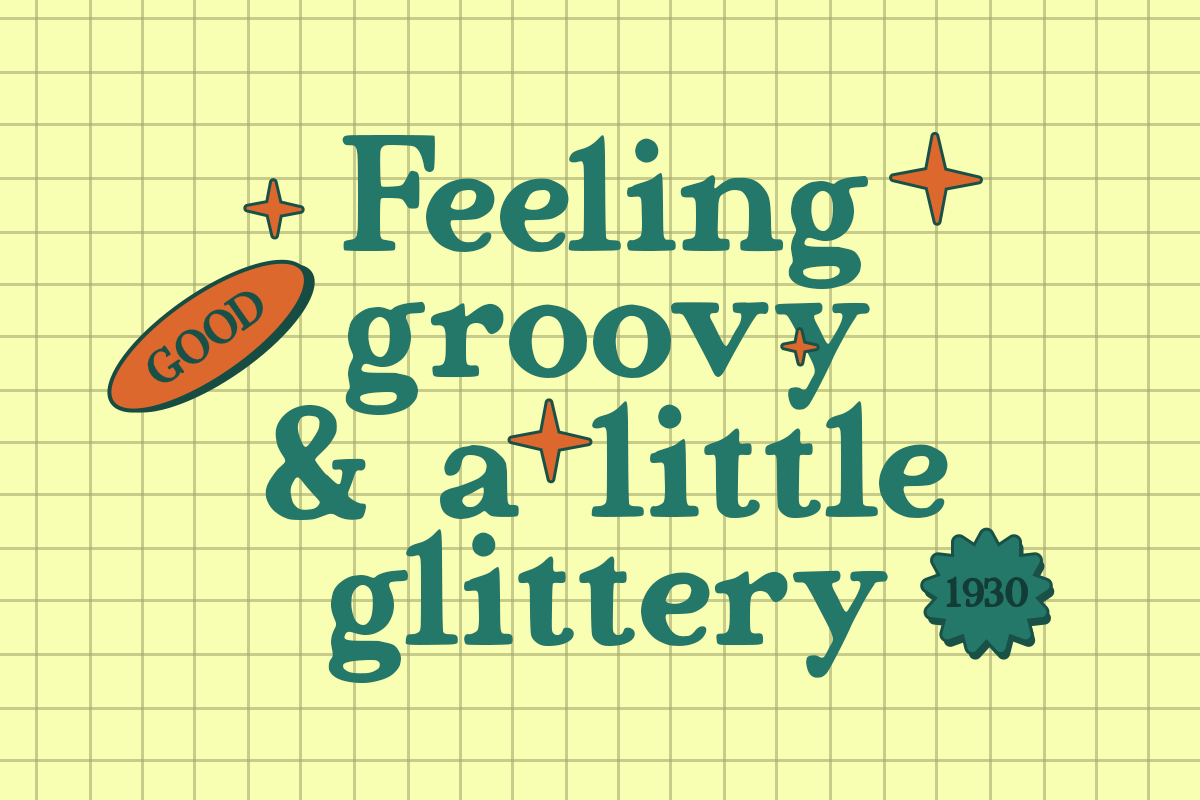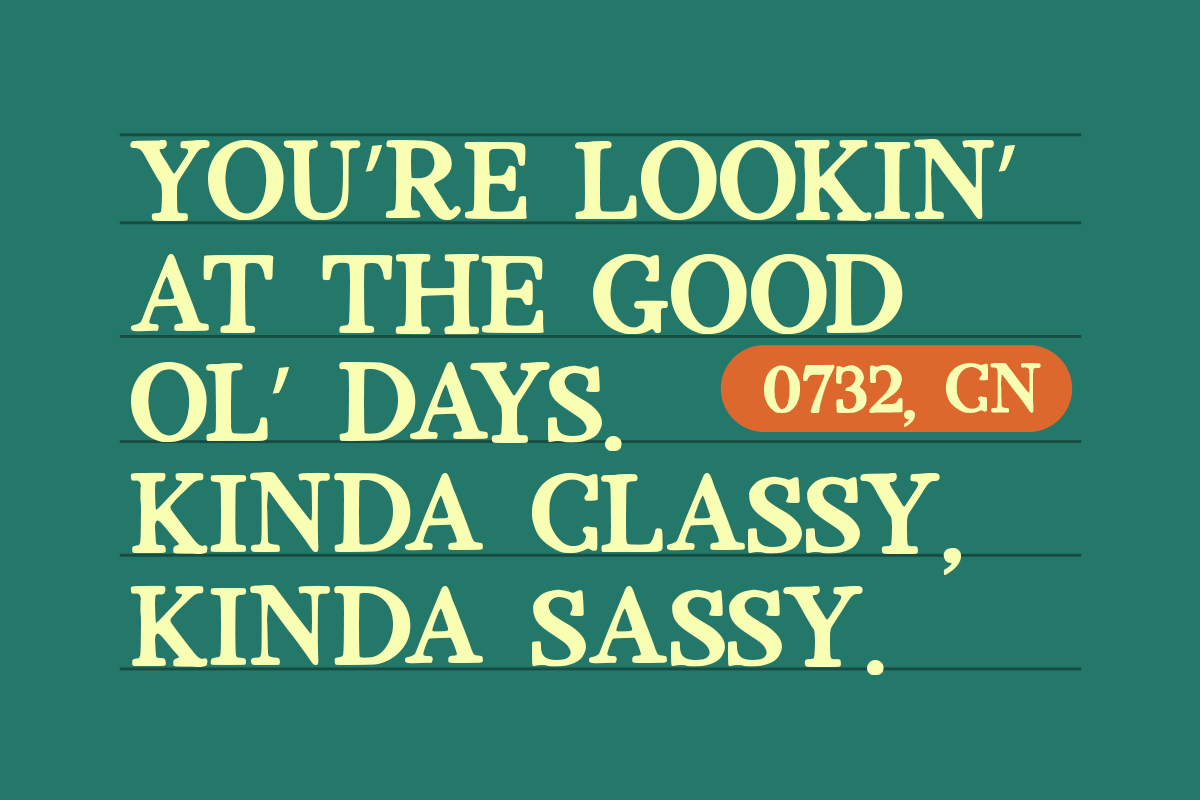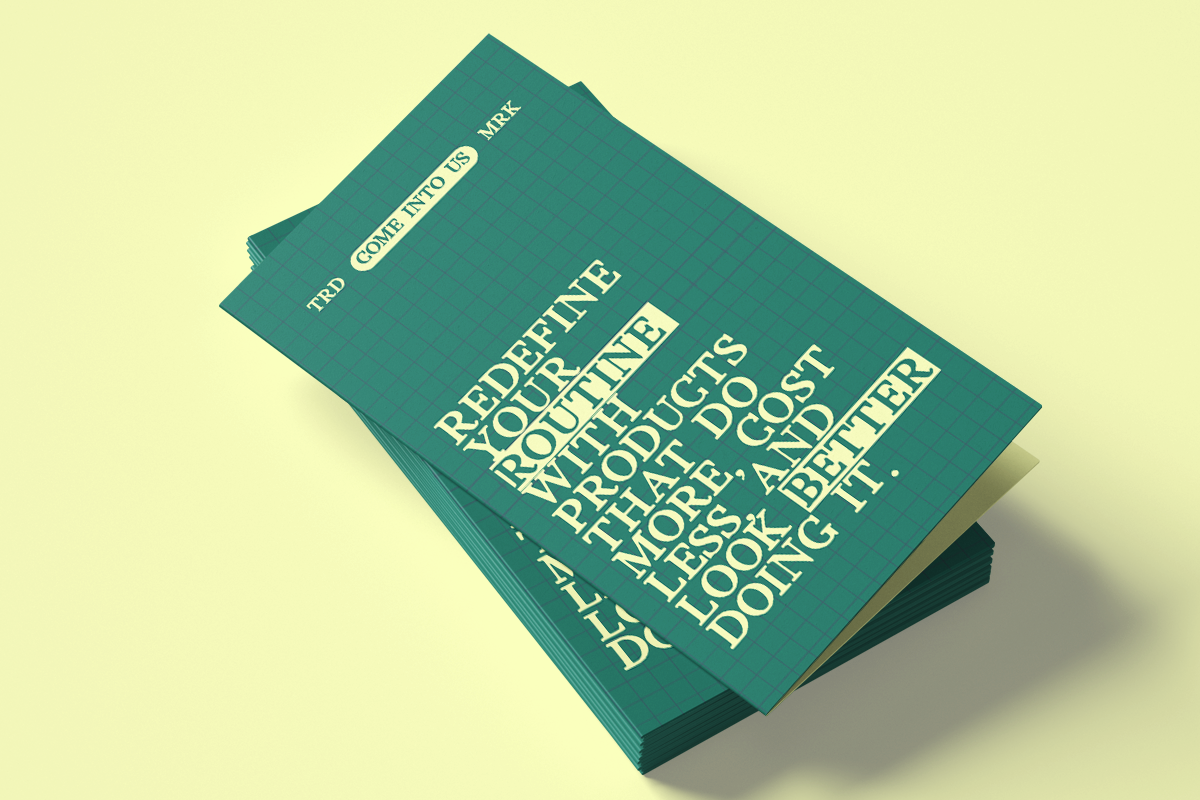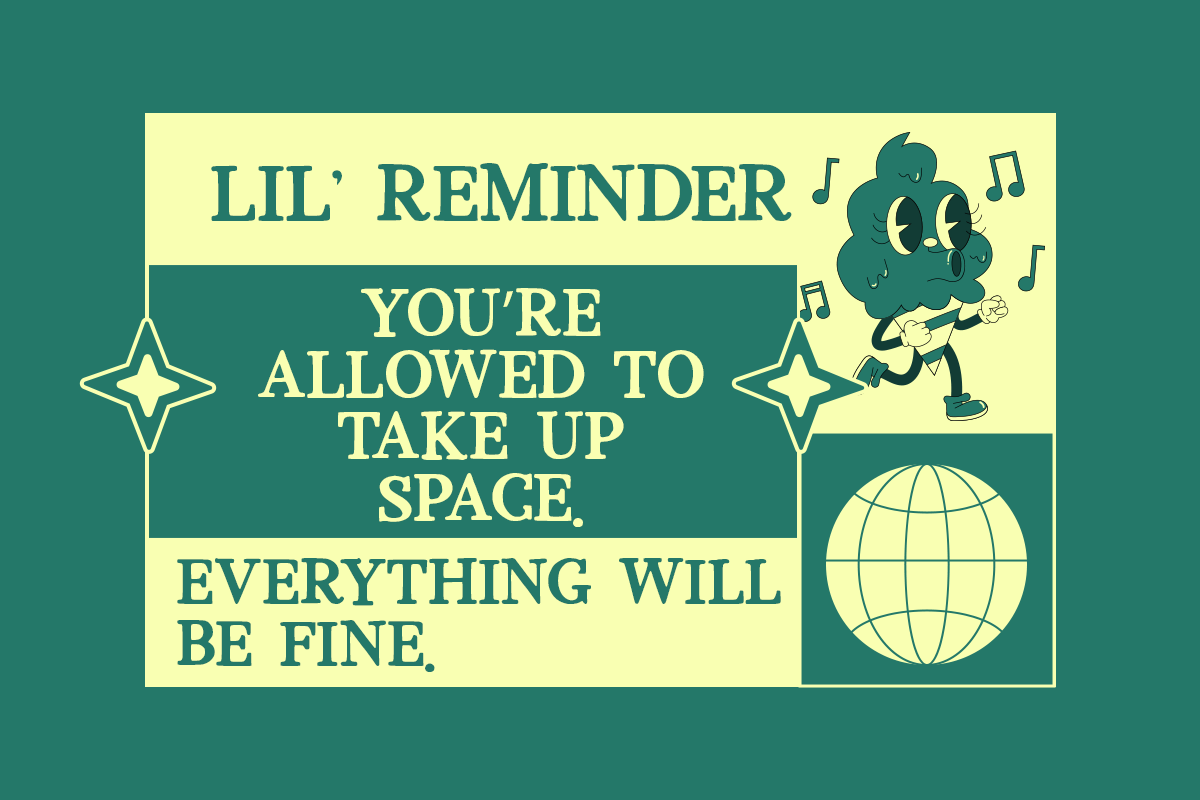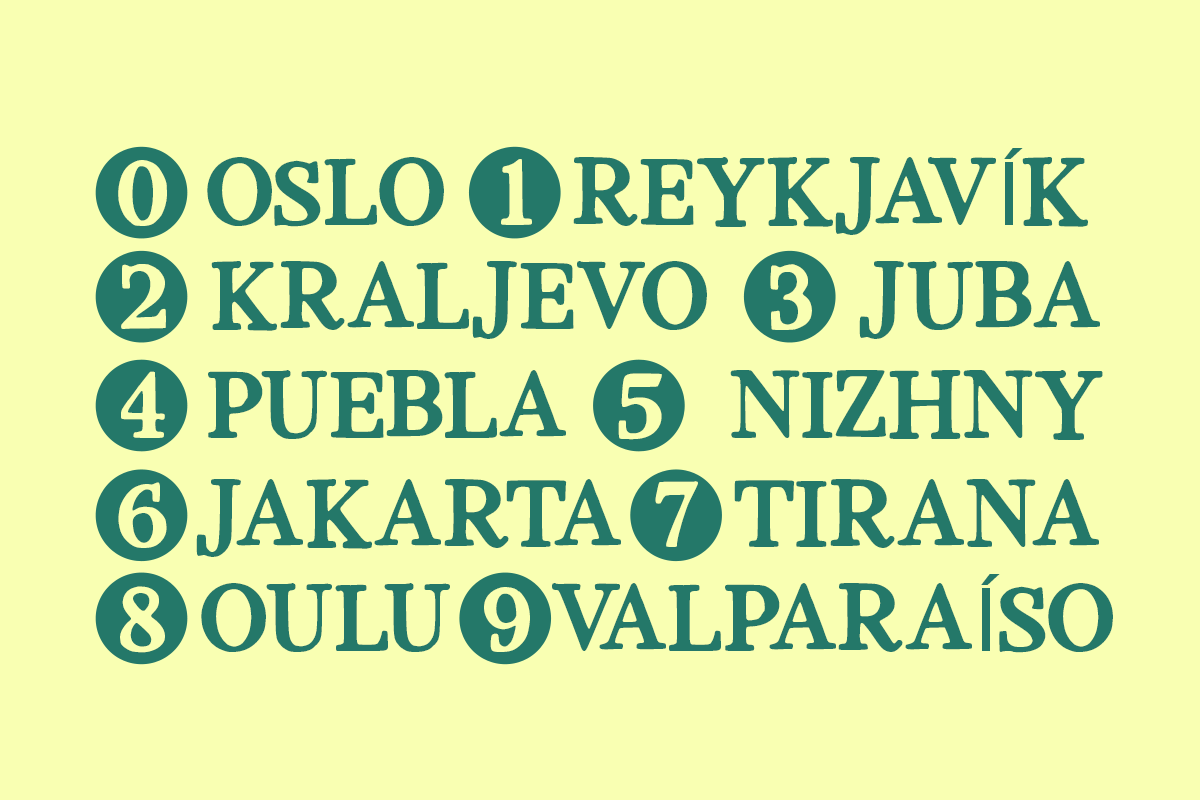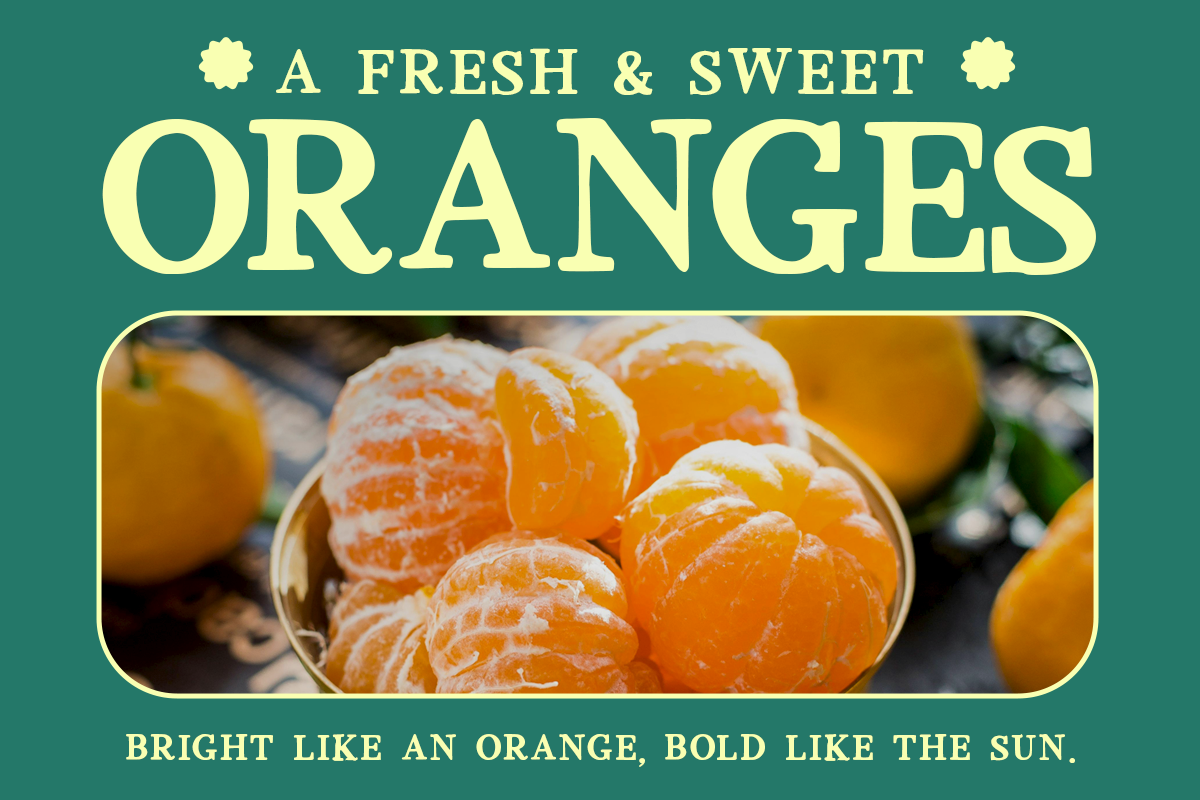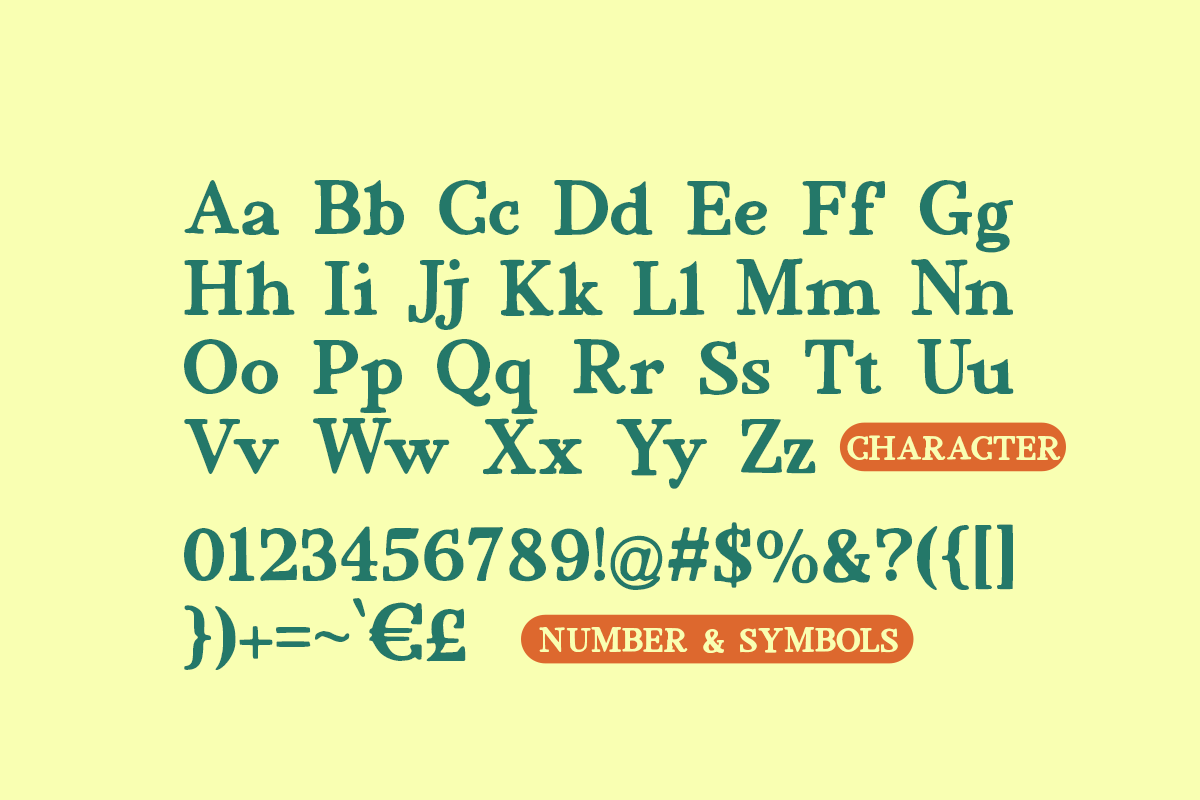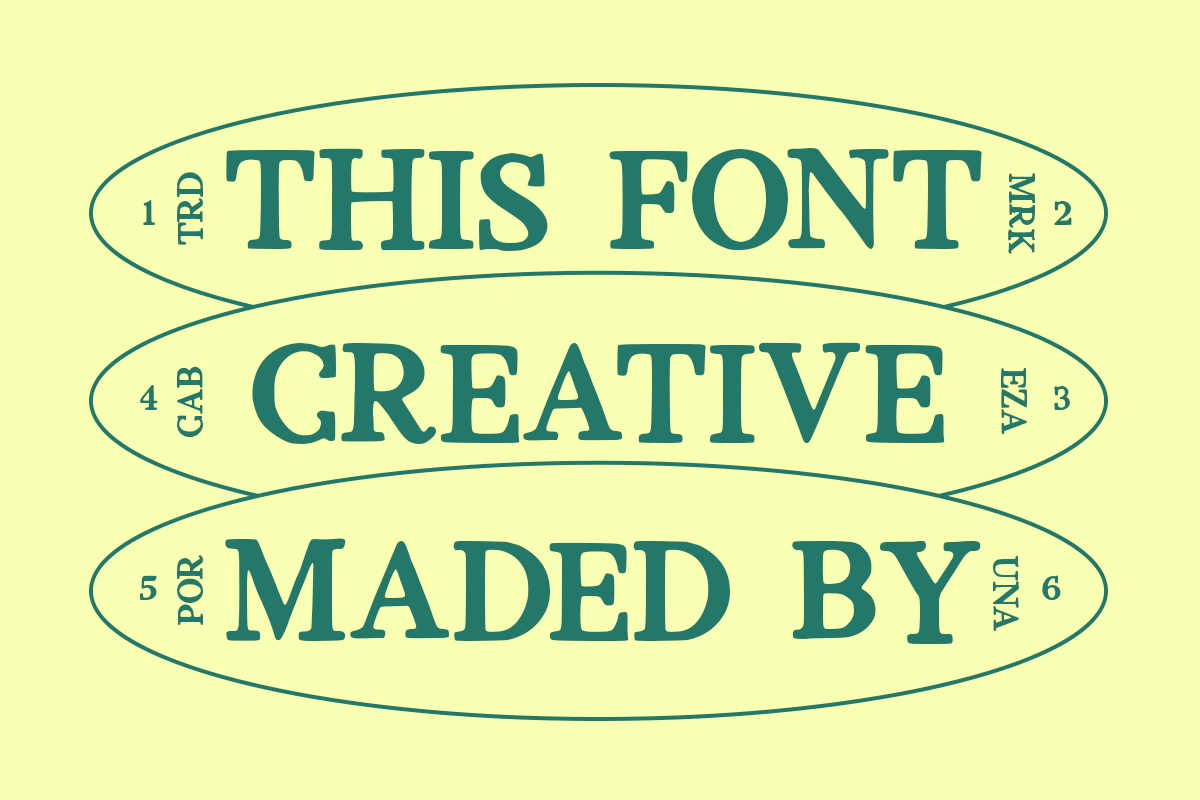
Jerkco - Retro Groovy Serif
Jerkco is a retro serif font with bold character and a splash of playful attitude. Inspired by vintage aesthetics and nostalgic typography, it’s perfect for catchy headlines, lifestyle designs, branding, and fun packaging. With its sharp edges and smooth curves, Jerkco gives your message a classic yet quirky vibe. The font includes uppercase, lowercase, numbers, symbols, and basic punctuation—ideal for designs that need flair without complexity.
- Full Character Set: Uppercase, lowercase, numbers, symbols, and punctuation